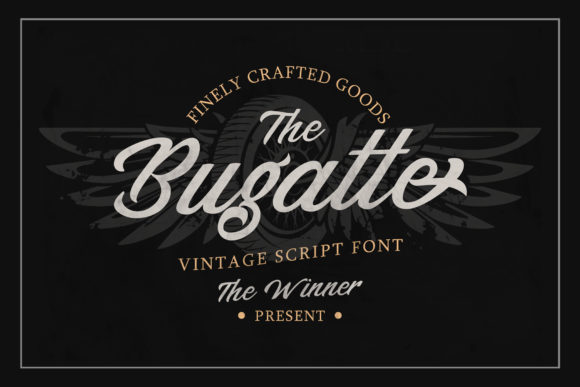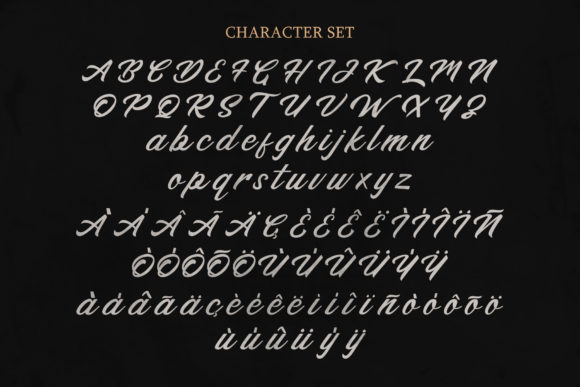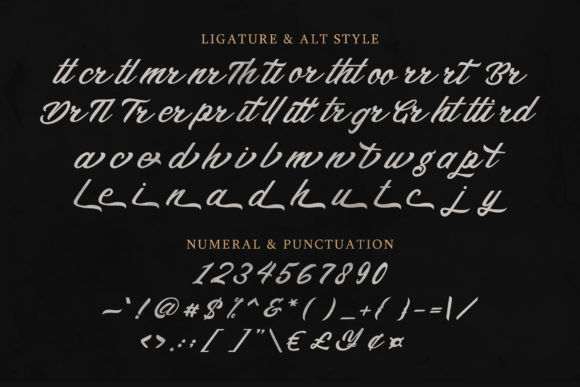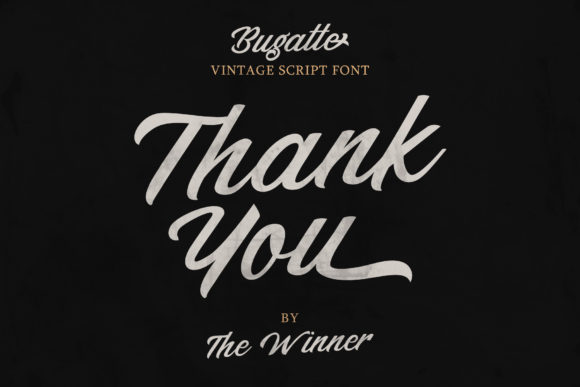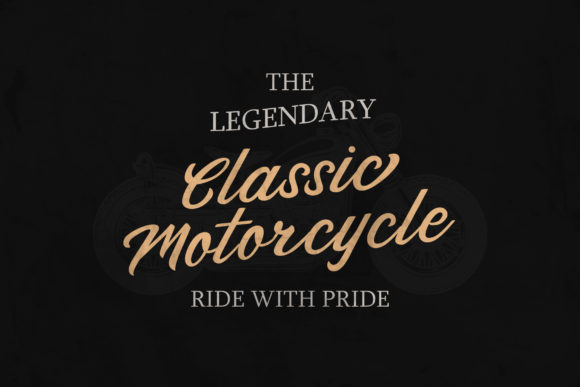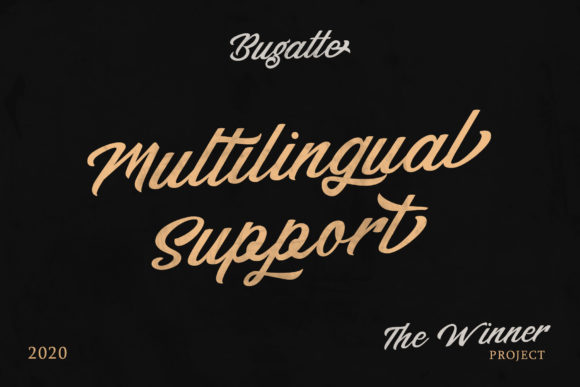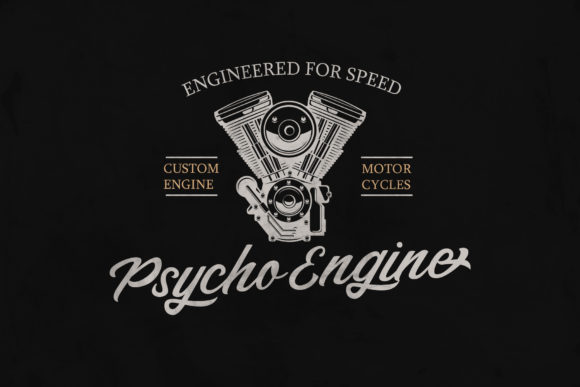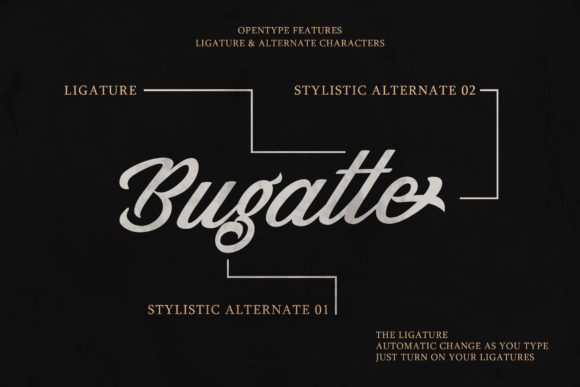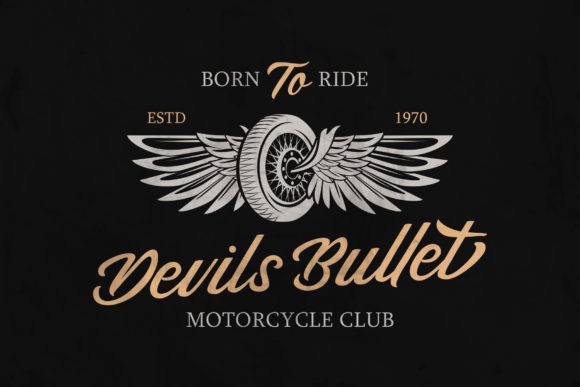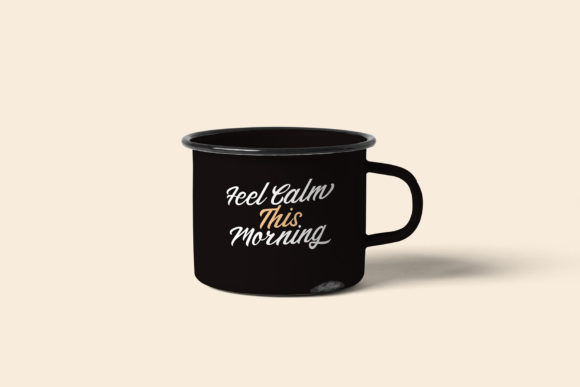
Bugatte Font
About Bugatte Font
Bugatte is a vintage and retro-styled script font. Beautiful and versatile, it will make a great impact on any of your creative projects. Add it to your badges, posters, branding, and many more, and you will notice that it makes them come alive!